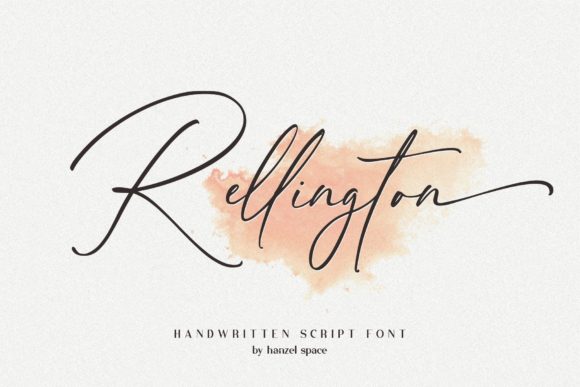
**Rellington Font: The Epitome of Elegance and Grace**
Unleash your creativity with Rellington, a captivating script font that will add a touch of enchantment to your designs. Its slender, flowing letters evoke a sense of effortless elegance, making it the ideal choice for creating captivating invitations, stationery, and social media posts.
With Rellington, your designs will exude sophistication and charm. Its delicate strokes dance across the page, leaving behind an imprint of timeless beauty. Imagine the awe-inspiring wedding invitations that will announce your special day, each letter a testament to the love and joy you share.
But Rellington's allure extends far beyond the confines of paper. It's a font that will elevate your digital presence, transforming your social media posts into works of art. Its graceful curves and subtle flourishes will captivate your audience, drawing them into your world of imagination and inspiration.
Rellington is not just a font; it's an invitation to express yourself in a way that's both unique and unforgettable. Its PUA encoding grants you access to a treasure trove of glyphs and swashes, empowering you to unleash your creativity without limits.